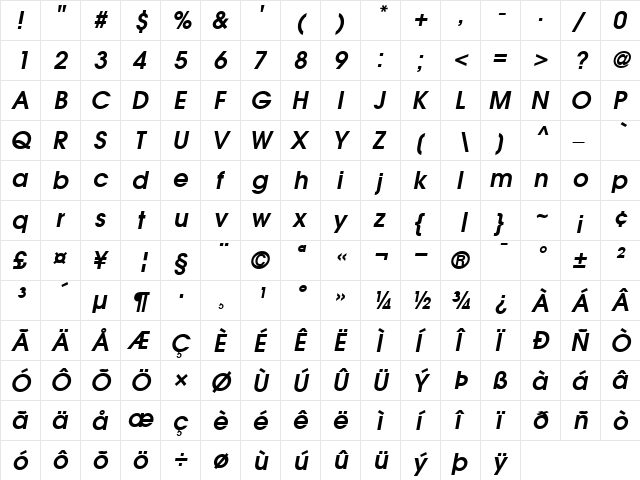
AvantGarde DemiOblique Font Preview
AvantGarde DemiOblique
Design Context for AvantGarde Typeface
AvantGarde takes a measured approach to typography — its balanced proportions and neutral character make it a reliable workhorse for both digital and print work. Its italic angle brings a sense of urgency and motion to the letterforms.
Pro Tip: Try AvantGarde for annotation and caption copy alongside an upright companion — the contrast in angle creates a dynamic but ordered typographic system.